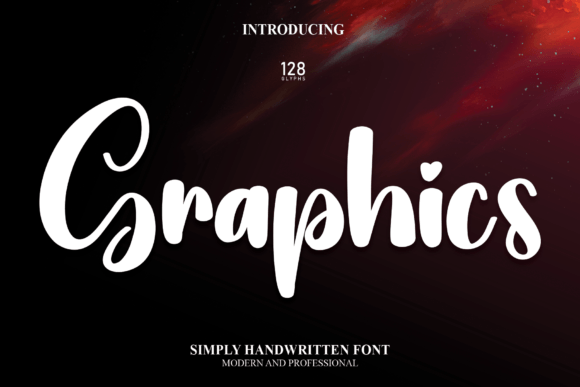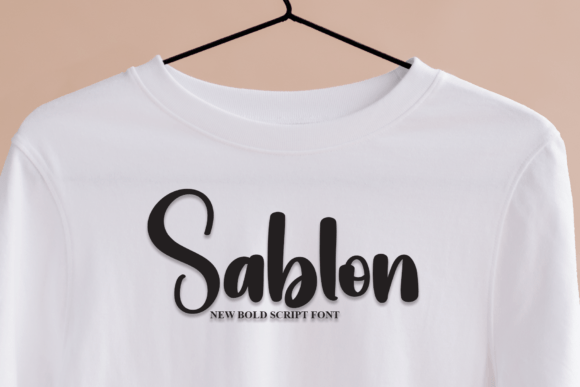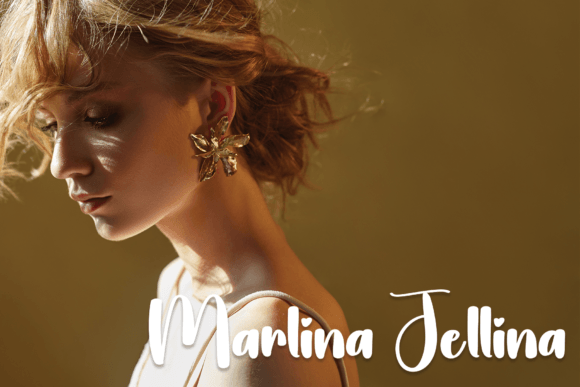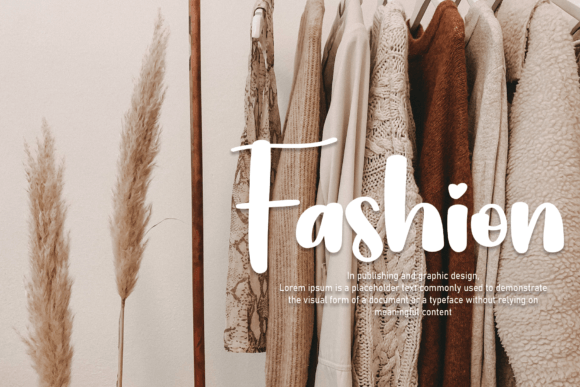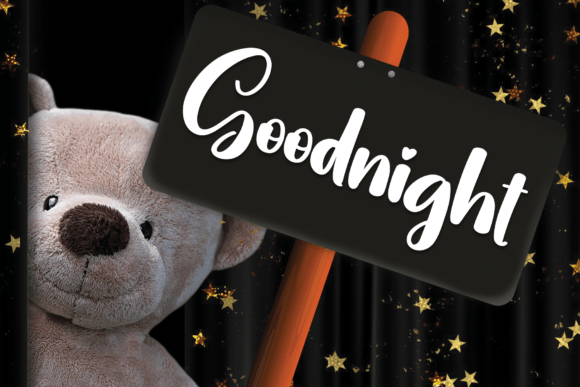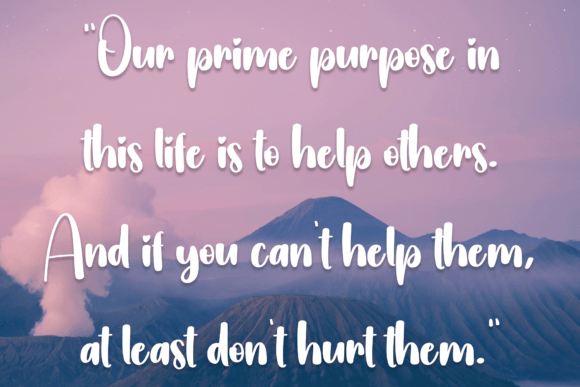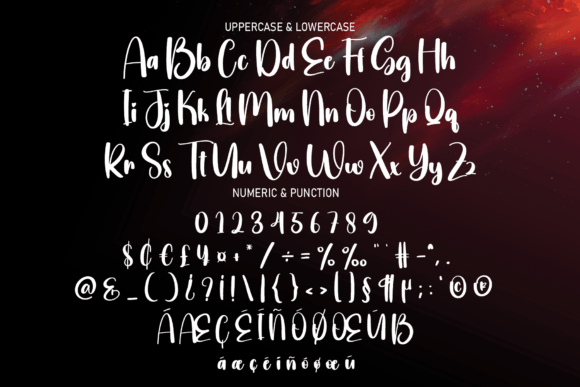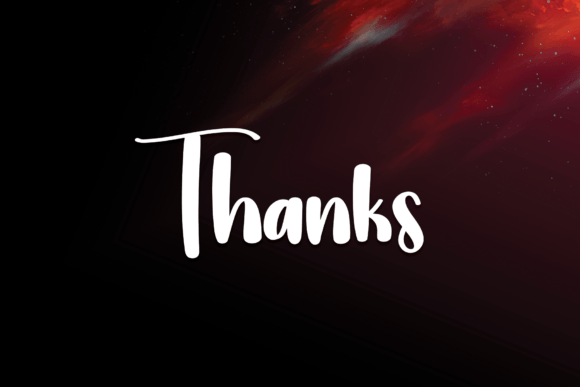
Graphics Font
About Graphics Font
The latest style letters of this font offer an ideal solution for a diverse range of creative projects, providing a perfect fit for applications such as wall displays, wedding invitations, social media post logos, advertisements, product packaging, product designs, labels, photography, watermarks, invitations, stationery, and any project that seeks the charming touch of handwritten aesthetics.
Crafted with precision, the style letters bring a unique and personal flair to your designs, ensuring that each project stands out with authenticity and creativity. Whether you’re envisioning captivating wall displays or elegant wedding invitations, the versatility of these letters makes them a seamless choice for a variety of visual expressions.
In the realm of branding, these style letters shine on social media post logos and advertisements, adding a touch of sophistication and modernity to your brand identity. When applied to product packaging and designs, the font elevates the overall visual appeal, transforming products into eye-catching and memorable experiences for consumers.
For labels and photography, the nuanced strokes and distinctive design elements of this font’s style letters provide a timeless charm. The font seamlessly integrates into watermarks, offering a signature touch that enhances the authenticity and individuality of your images. In the context of invitations and stationery, these style letters contribute warmth and character, ensuring each piece feels personal and inviting.
To sum up, the latest style letters of this font are a versatile choice for anyone in need of a handwritten aesthetic in their projects. From wall displays and wedding invitations to social media logos, advertisements, product packaging, and beyond, these letters bring a unique charm that elevates the visual appeal of every creative endeavor. Embrace the warmth and creativity of these style letters to make your projects truly stand out.